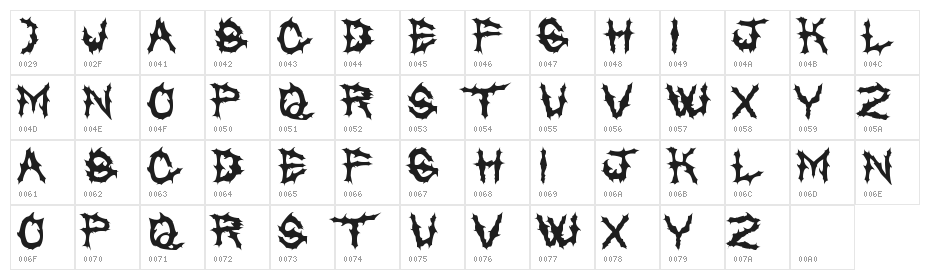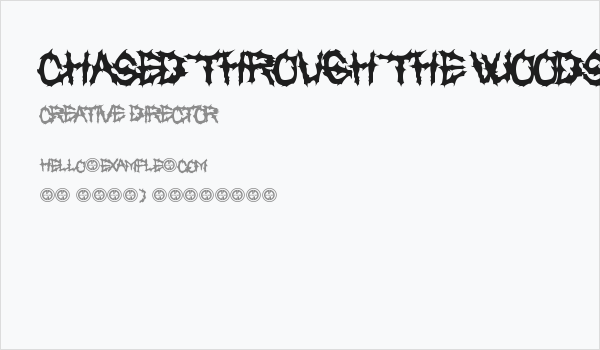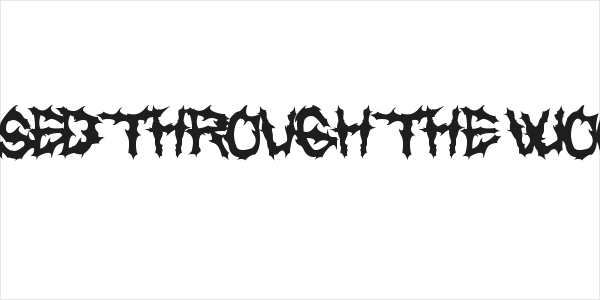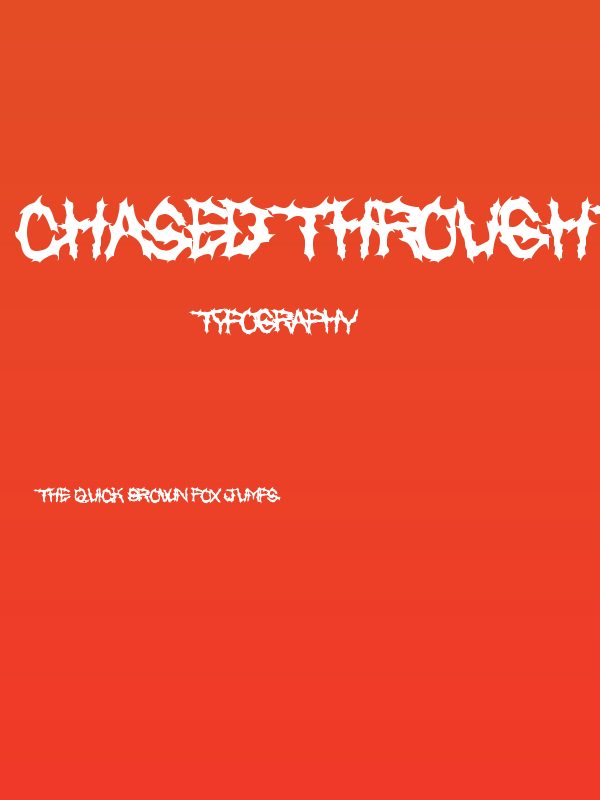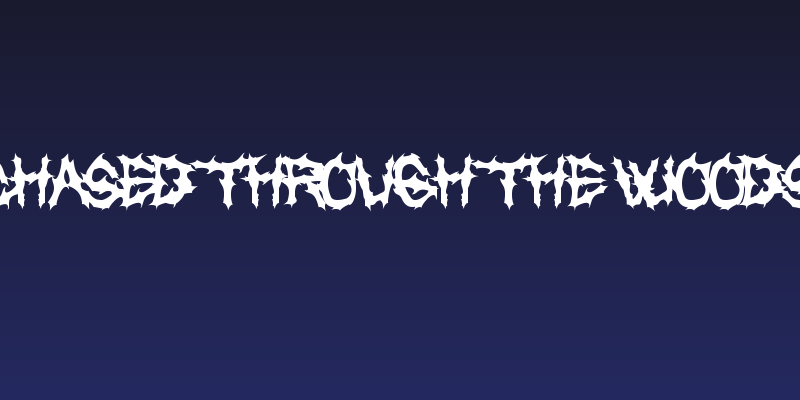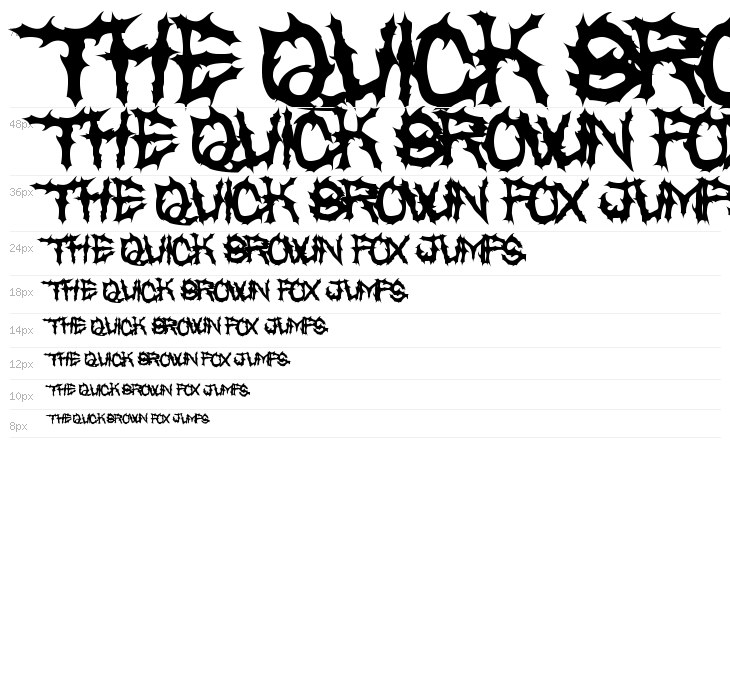
Chased Through The Woods Font
Chased Through The Woods Description
This font features a highly decorative and intricate design, characterized by sharp, thorn-like extensions that give each letter a wild and untamed appearance. The edges are jagged and irregular, creating a sense of movement and chaos. The overall look is reminiscent of twisted branches or barbed wire, making it ideal for projects that require a dramatic and edgy aesthetic. The uppercase and lowercase letters maintain a consistent style, with the numbers and special characters following suit. This font's unique style is perfect for capturing attention and conveying a sense of danger or mystery.
| Proposed Projects | Ideal for horror-themed posters, Halloween invitations, edgy branding, or album covers. |